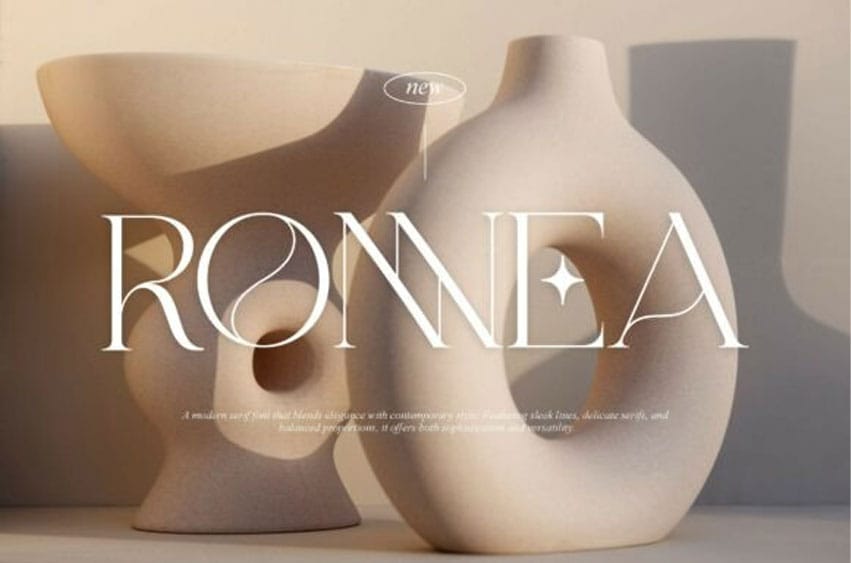
Ronnea Font is a sleek, modern serif font that combines elegance with contemporary minimalism. Its thin strokes, delicate serifs, and balanced proportions bring sophistication and grace to any design.
Perfect for fashion branding, wedding invitations, packaging, magazines, and upscale digital content, Ronnea communicates style and refinement with ease. A versatile typeface, it is designed to elevate modern creative projects with timeless charm.